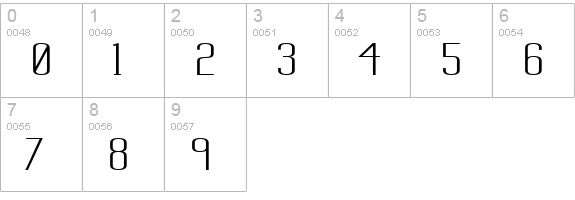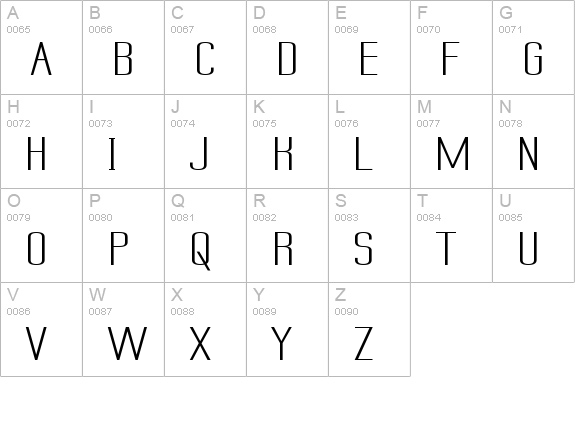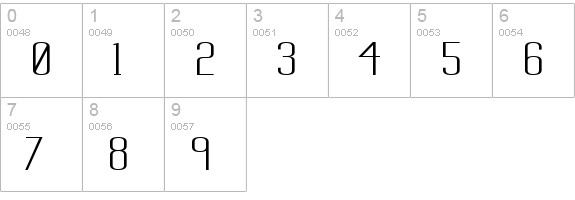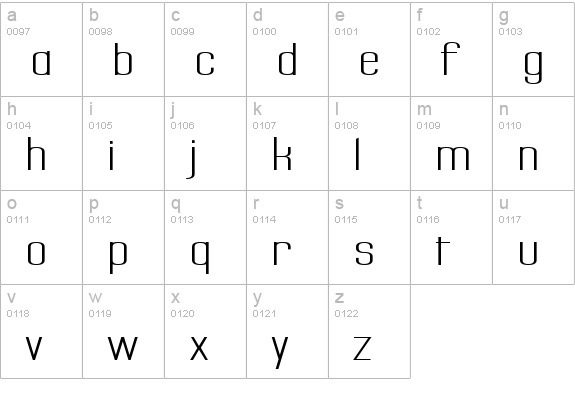
Introducing Labtop Secundo Superwide font, a modern and versatile typeface that exudes sophistication and creativity. With its unique blend of sharp angles and sleek curves, Labtop Secundo Superwide is perfect for making a bold statement in any design project. Whether you're creating a logo, poster, or website, this font will add a touch of elegance and professionalism to your work. What's even better is that Labtop Secundo Superwide font is available for free download at FontsMarket.com. You can easily access this stunning typeface and elevate your designs without breaking the bank. Don't miss out on the opportunity to enhance your projects with Labtop Secundo Superwide font today!